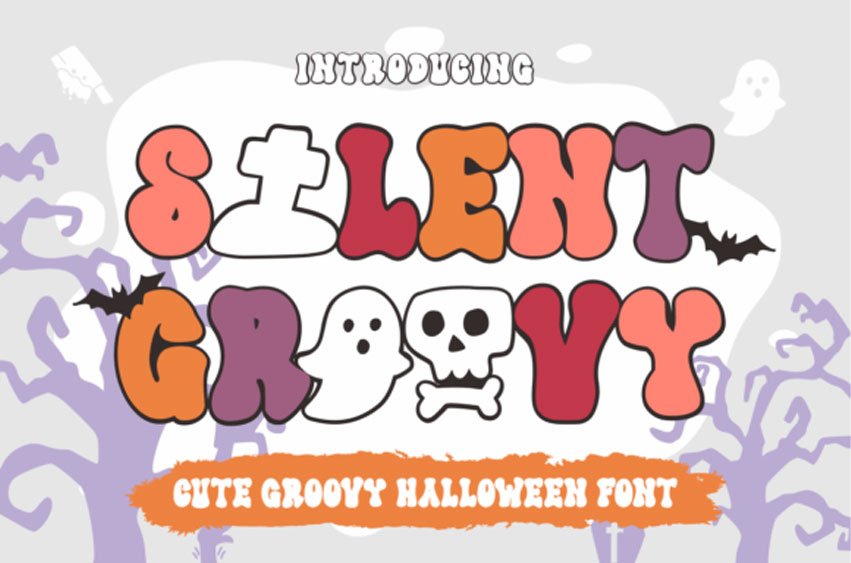
Silent Groovy Font is a spooky, cute, and fun groovy display font.
Whimsical and a bit mysterious, this font is perfect for all your horror-themed and Halloween projects.